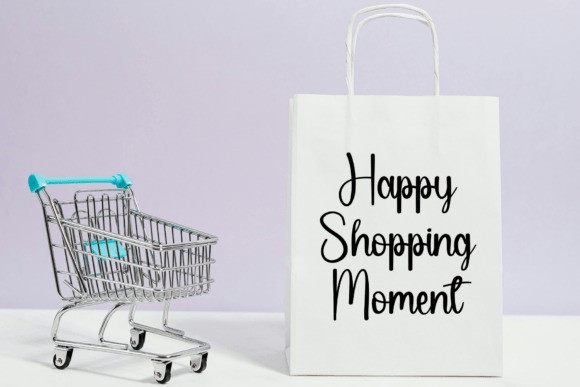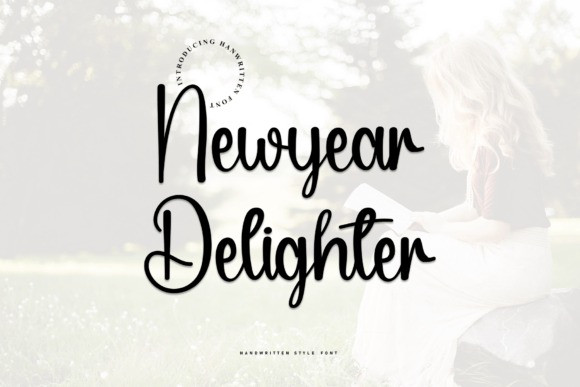
Newyear Delighter Script Font
Newyear Delighter Script Font is a sweet and beautiful handwritten font. Featuring characters that dance along the baseline, this font will add a cozy accent to any design project you wish to create!